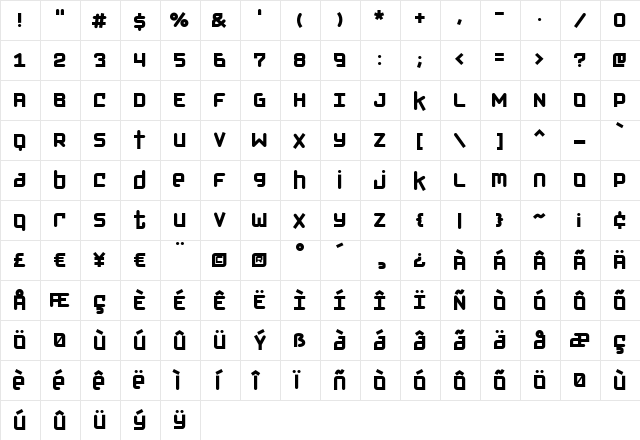
Klondike Bold Regular
| Foundry | Fonthead Design Inc. |
| Designer | Ethan Dunham |
Design Context for Klondike Bold Typeface
Klondike Bold takes a measured approach to typography — its balanced proportions and neutral character make it a reliable workhorse for both digital and print work. The heavy weight commands attention and anchors typographic hierarchies.